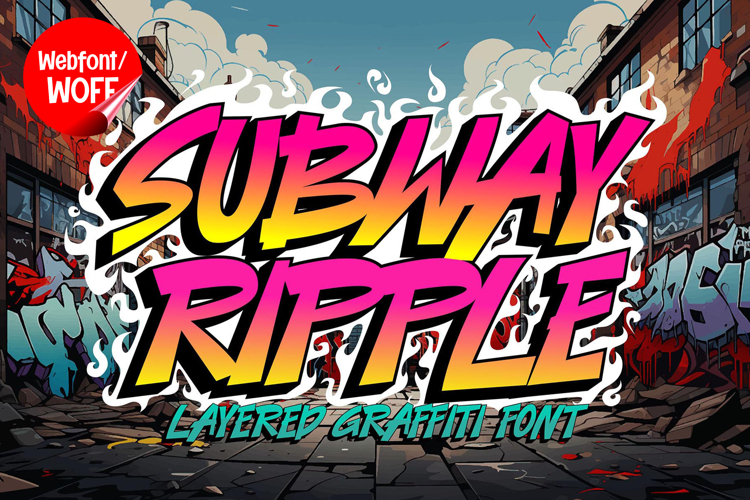
Subway Ripple | 3D Layered Graffiti Webfont for Urban Motion
Subway Ripple is a 3D layered graffiti webfont designed to capture the movement and rhythm of urban street art for modern website design. Inspired by subway graffiti and flowing mural styles, this font features bold shapes combined with layered depth and ripple-like forms that create a dynamic and energetic visual effect. It is an excellent choice for projects that require a strong, expressive, and motion-driven typographic identity.
Subway Ripple includes a complete set of uppercase characters designed with bold graffiti forms enhanced by 3D layered construction. The ripple-inspired design adds a sense of motion and fluidity, making each letter feel alive and impactful. These characteristics make it ideal for headlines, banners, hero sections, and featured content where strong visual emphasis is needed.
In addition to letters, the font includes numbers and punctuation, allowing flexible usage across various parts of a website. It works well for promotional text, event announcements, branding elements, and navigation highlights. Each character maintains a consistent layered graffiti style, ensuring a cohesive and unified visual identity throughout the layout.
With multilingual support, Subway Ripple includes a wide range of accented characters, making it suitable for international websites and global audiences. This allows content to be displayed clearly across different languages while preserving the bold graffiti aesthetic.
The 3D layered graffiti style of Subway Ripple makes it especially suitable for urban-themed websites, streetwear brands, music platforms, gaming interfaces, and creative portfolios. Its flowing and dimensional design adds depth and movement, helping websites stand out in competitive digital environments. The ripple effect enhances visual interest and creates a more immersive typographic experience.
Despite its bold and decorative appearance, Subway Ripple is designed with readability in mind. The spacing and proportions are carefully balanced to ensure clarity, particularly in display sizes. This makes it effective for impactful headings and short content elements where both style and usability are important.
Subway Ripple is a webfont that combines graffiti aesthetics with layered depth and fluid motion, supported by modern digital performance. Its bold shapes, ripple-inspired structure, and urban character create a distinctive typographic presence that enhances website design. For projects that require a powerful, creative, and visually engaging graffiti font, Subway Ripple offers a strong and dynamic solution.